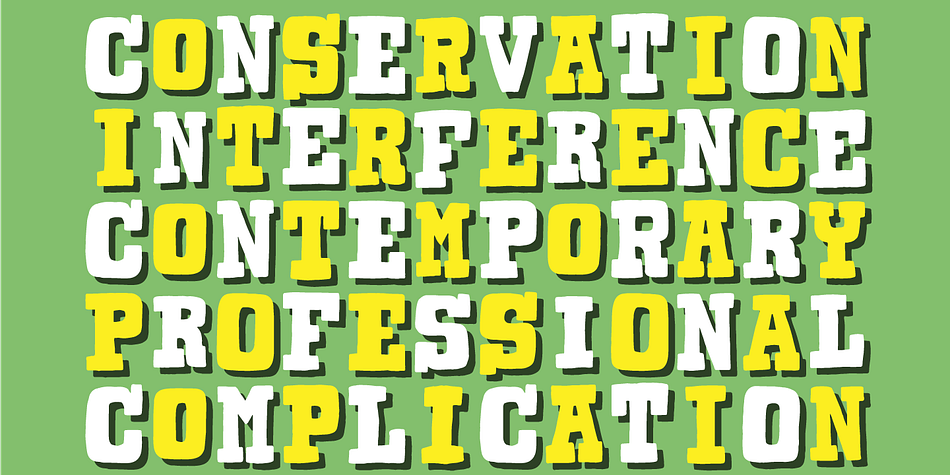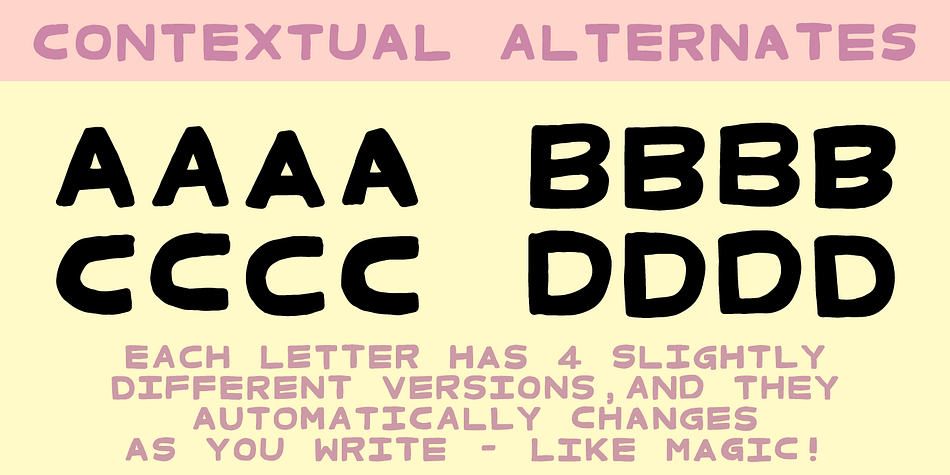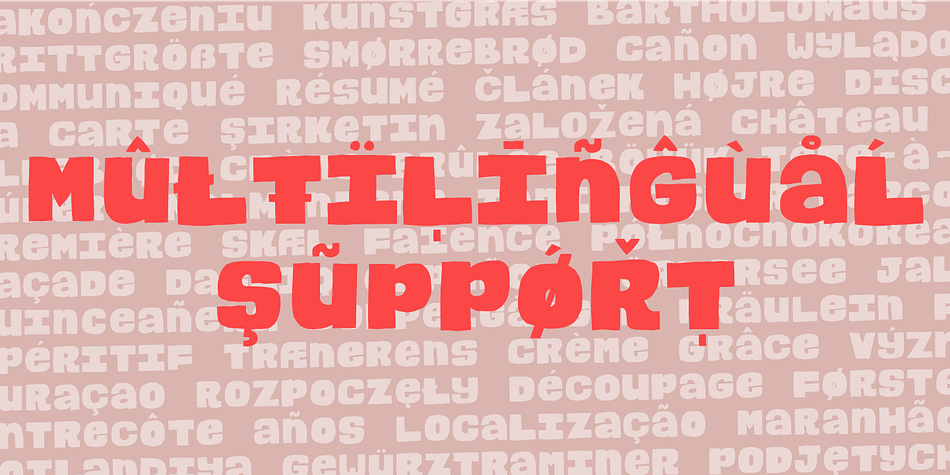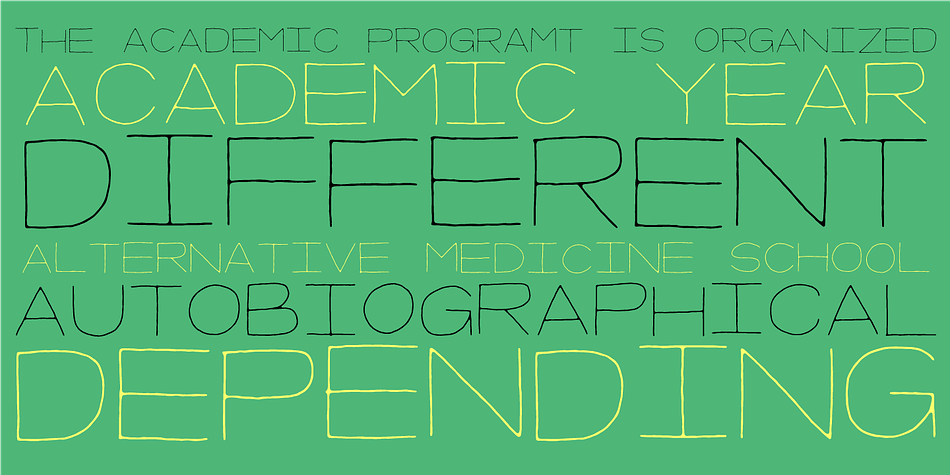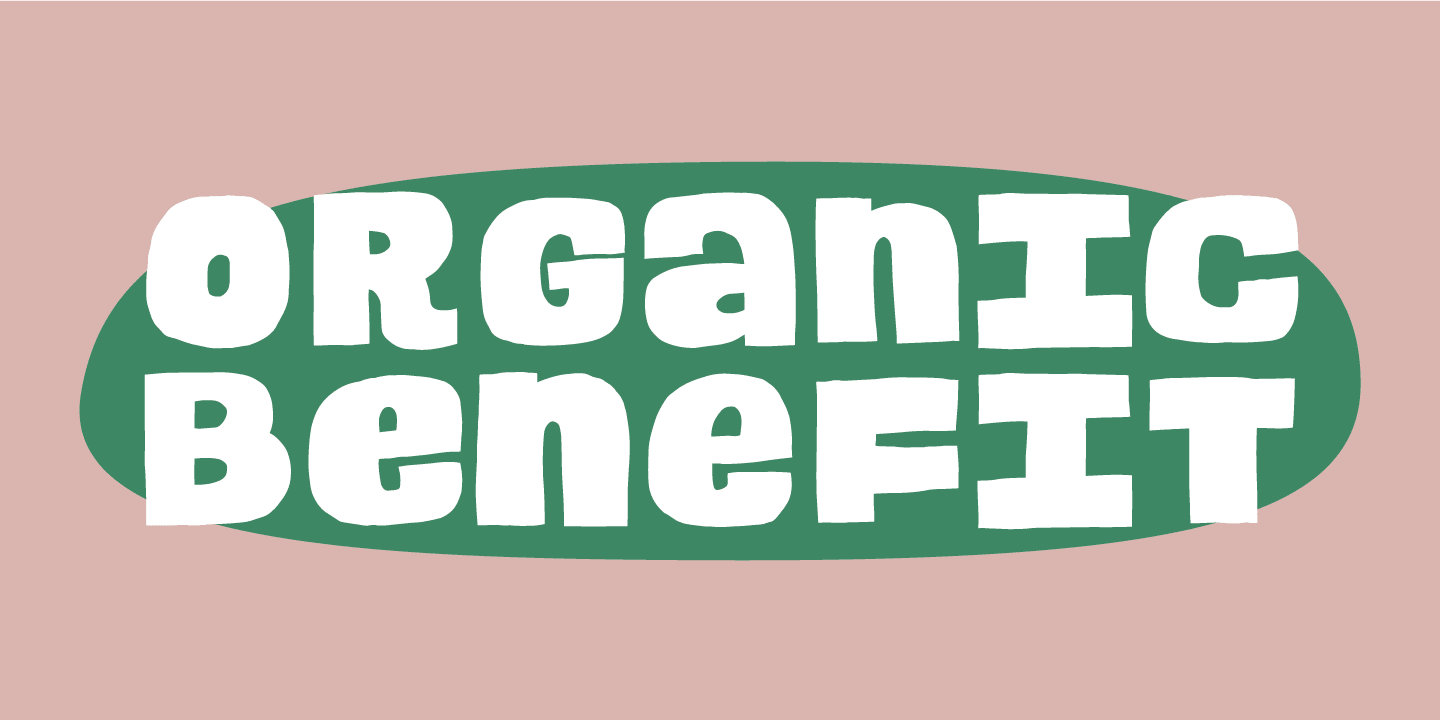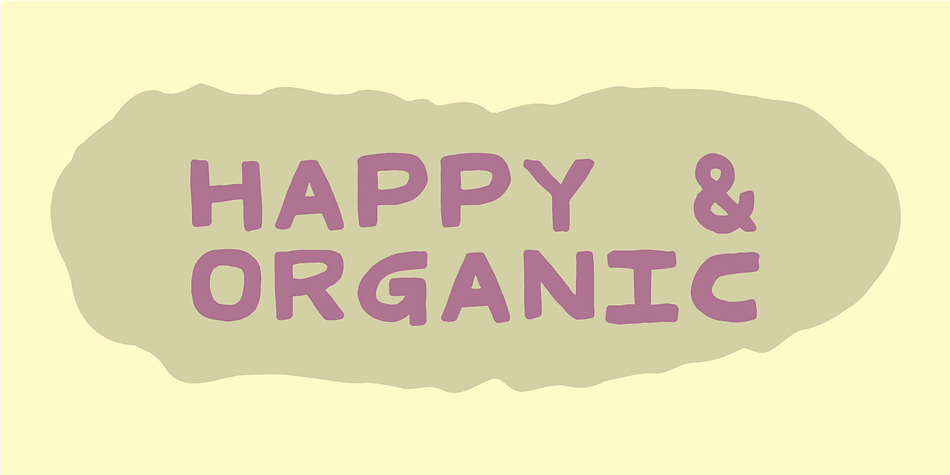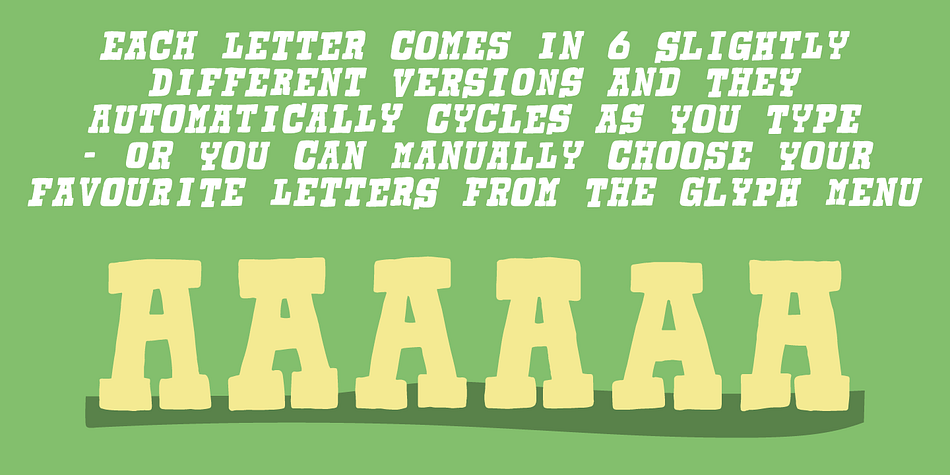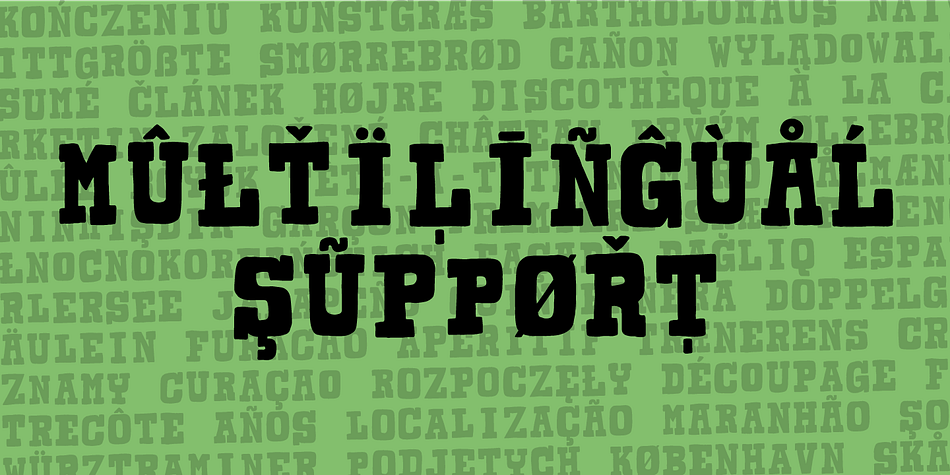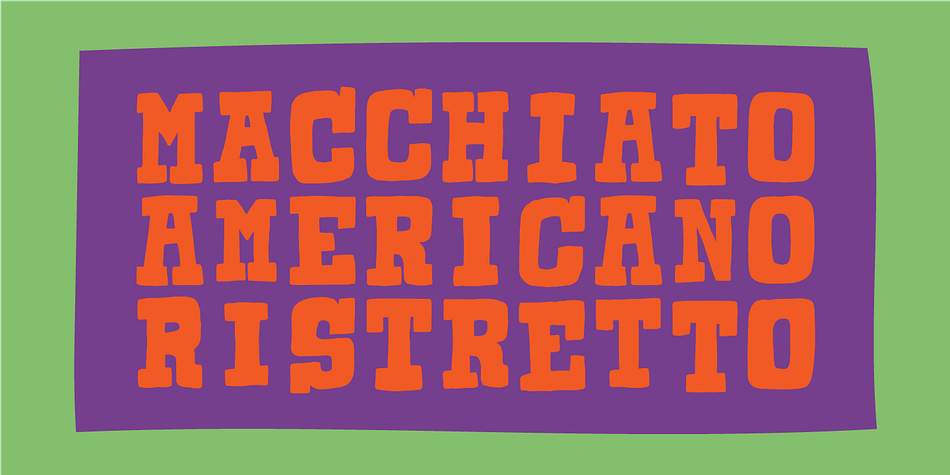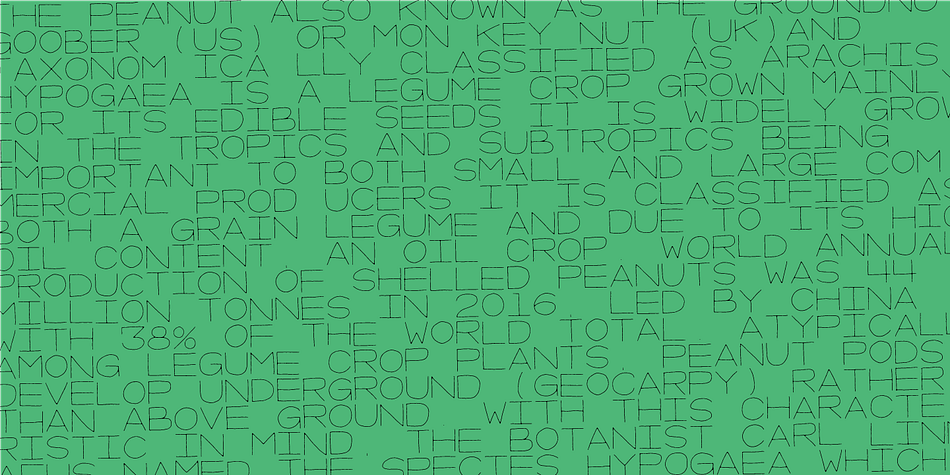
Designed by Jakob Fischer, Organic Collection is a multiple classification font collection published by Bogstav.
Maybe most monospaced fonts are connected to something to do with computers, programming or futuristic. In this case, the monospaced fonts are representing a dynamic, organic and handmade look.
The Organic Collection contains 5 monospaced fonts - all of them with contextual alternates, meaning several versions of each letter, for a more dynamic and organic look!